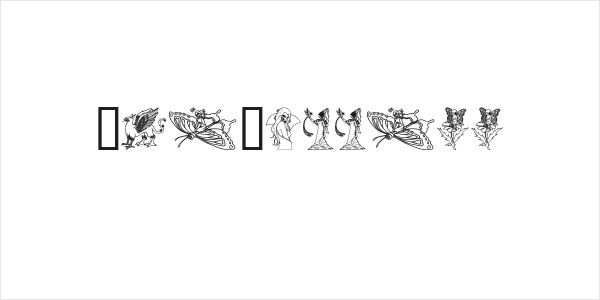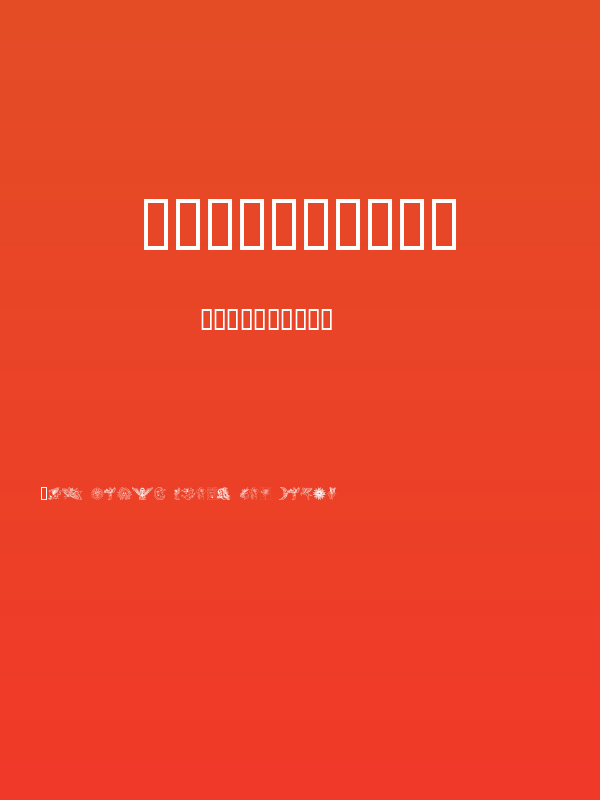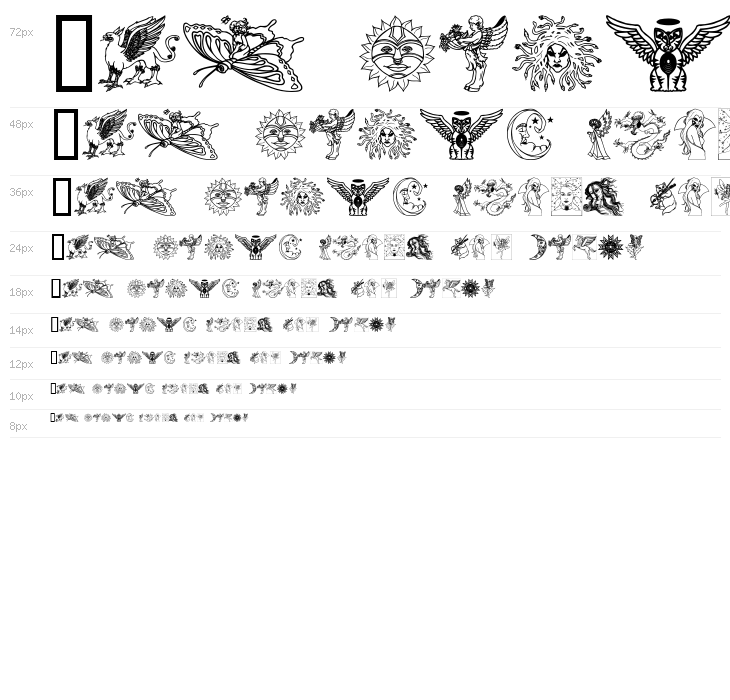
TheGoddess Font
TheGoddess Description
A decorative display font featuring intricate illustrations of mythological and celestial figures, such as goddesses, angels, suns, moons, and animals, with each glyph represented by a unique, detailed black-and-white drawing.
| Overall Style | Decorative, Mystical, Fantasy |
| Use Case | Logos, Posters, Book covers, Artistic projects |
| Proposed Projects | Tarot cards, fantasy book covers, mystical branding, event posters, spiritual merchandise. |